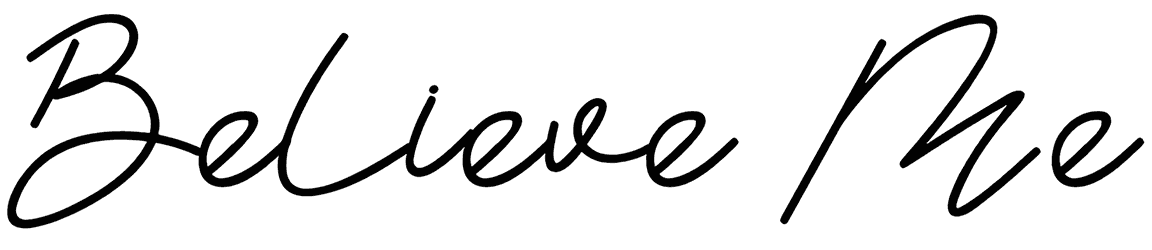
We face a simple and timeless handwritten font that can be used for a high number of purposes. If you intend to award a friendly and casual look to your design, you have come to the right place, Hello Starbucks font, this fancy font can be your proper choice that goes great for many visuals like friendly occasions, label design, and promotions.